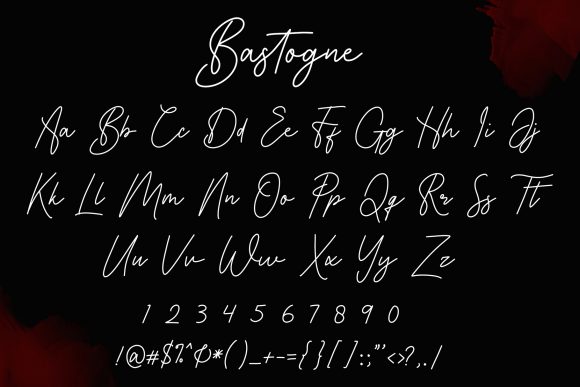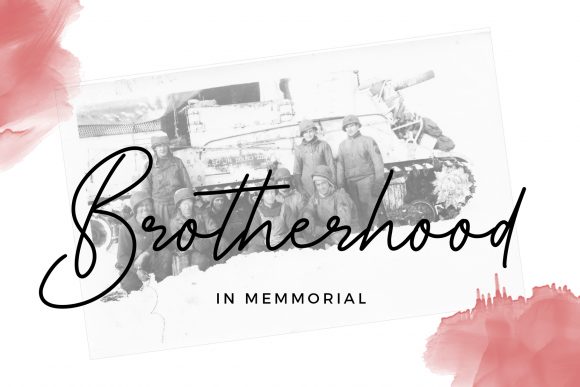
About Bastogne Font
Bastogne is a beautiful light handwritten font with a unique feel and a stunning impact. It will add a luxury spark to any design project that you wish to create!